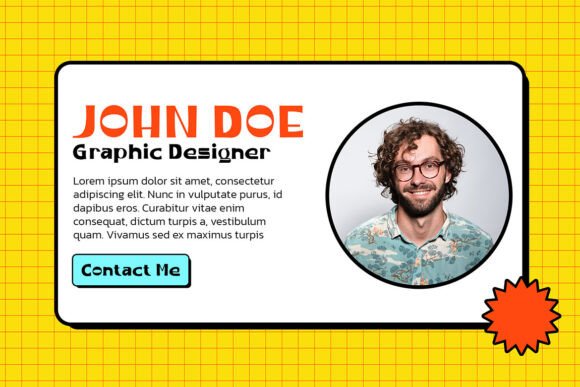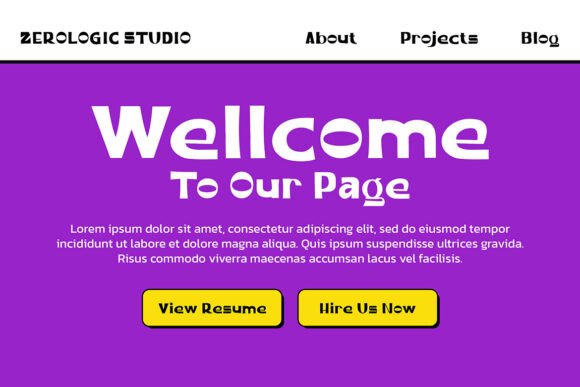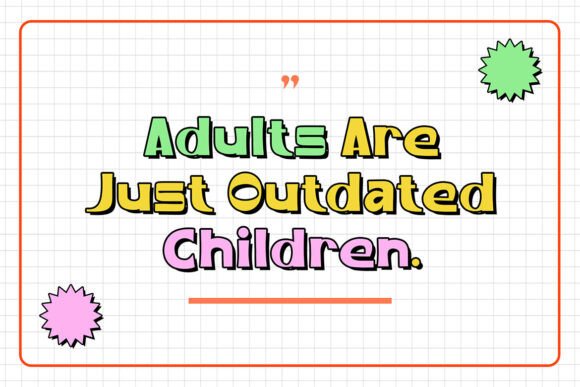
Introduction to Potent Sans Font
Have you ever stared at a blank canvas, struggling to find the perfect font to bring your creative project to life? The moment of truth arrives when you finally discover a font that elevates your design from ordinary to extraordinary. For many designers, this moment is the key to unlocking a truly impactful visual identity.
Enter the Potent Sans Font, a bold and modern font designed specifically for eye-catching headlines and titles. With its strong, clean lines and high-quality design, this font is the ultimate design resource for any creative project. Whether you’re working on a free download or a high-stakes commercial campaign, the Potent Sans Font is sure to deliver a powerful and stylish look that will leave a lasting impression.
- High-quality design resource ideal for creative projects, offering a clean and modern aesthetic.
- Unique characteristics include its geometric shape and clean lines, making it perfect for minimalist and modern designs.
Honest Review: Potent Sans Font
I recently came across the Potent Sans Font and was excited to try it out for my next design project. As a designer, I’m always on the lookout for high-quality design resources to enhance my creative work.
Here are some pros of using Potent Sans Font:
- ✨ High-quality font with a clean and modern design
- ✨ Compatible with a variety of creative projects, from branding to web design
- ✨ Offers a transparent background, making it easy to use in different design contexts
- ⚠️ Limited font variations available, which may not be suitable for complex design projects
- ⚠️ Not ideal for projects requiring a lot of customization, as the font is quite straightforward
Overall, I was impressed with the Potent Sans Font and would definitely recommend it for designers looking for a clean and modern font for their creative project. While it may not be the best choice for complex projects, it’s an excellent resource for simpler designs.
The Potent Sans Font is ideal for use in logos, headings, and body text. Its clean and modern design makes it perfect for a wide range of creative projects, from business cards to brochures.